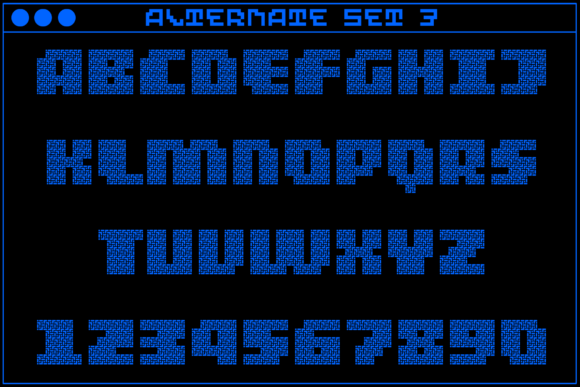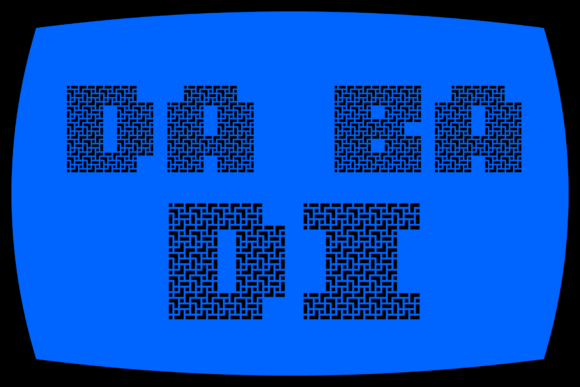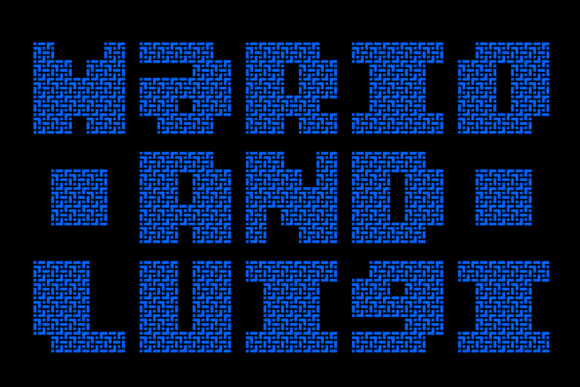
Introduction to MultiType Maze Display Font
Have you ever found yourself stuck in a creative rut, searching for that one special element to elevate your design project? It’s like the perfect chord progression in music – when it finally clicks, it can take your work to the next level. For designers, the quest for the perfect font is an ongoing one. But what if you could add a dash of uniqueness to your designs with a font that’s equal parts retro and futuristic?
Enter the MultiType Maze Display Font, a visually striking, pixelated display font that’s sure to add a distorted and trendy touch to your designs. With its PUA encoding, you can access all glyphs and swashes with ease, giving you the freedom to experiment and push the boundaries of your creative project.
Key Features of MultiType Maze Display Font
- MultiType Maze Display Font is a free design resource perfect for creative projects that require a unique and eye-catching display font.
- High-quality font with a transparent background, allowing for easy customization and integration into various design elements.
- Unique characteristics: each letter is designed to resemble a maze, adding an extra layer of visual interest to any creative project.
- Perfect for use in headings, titles, and other display text elements where a bold and playful font is required.
Honest Review: MultiType Maze Display Font
As a designer, I’m always on the lookout for high-quality design resources to elevate my creative projects. Recently, I stumbled upon the MultiType Maze Display Font, and I’m excited to share my honest review with you.
What works well: ✨ The MultiType Maze Display Font is incredibly versatile, with a range of weights and styles that make it perfect for everything from headlines to body text. The font is also highly customizable, allowing you to tweak the spacing and alignment to suit your design needs.
- ✨ High-quality design with crisp lines and clean typography
- ✨ Transparent background option for seamless integration with any design
However, I did encounter a few limitations: ⚠️ The font can be quite dense, which may make it difficult to read in smaller sizes. Additionally, the font family is quite large, which can be overwhelming if not used judiciously.
Overall, I’m impressed with the MultiType Maze Display Font. Its high quality, versatility, and customizability make it an excellent addition to any designer’s toolkit. While it may have some limitations, the benefits far outweigh the drawbacks.
How to Use MultiType Maze Display Font
The MultiType Maze Display Font is a versatile design resource ideal for creative projects that require a unique, eye-catching font. This high-quality font features a transparent background, making it easy to customize and integrate into various design elements.
Use the MultiType Maze Display Font in conjunction with other design elements, such as bold lines and bright colors, to create a striking visual effect.
Experiment with different font sizes and styles to add depth and interest to your design.
The MultiType Maze Display Font is ideal for:
Graphic design projects, such as posters, flyers, and brochures.
Web design projects, such as website headers and footers.
Print design projects, such as business cards and letterheads.
Alternatives to MultiType Maze Display Font
1. Bebas Neue
Bebas Neue is a high-quality, sans-serif font ideal for creative projects that require a modern, clean design. It’s perfect for use in logos, headings, and titles. This font is great for designers who need a versatile, all-purpose font that can be used across various design resources.
Compared to MultiType Maze Display Font, Bebas Neue has a more straightforward and minimalistic design, making it easier to read and use in a variety of creative projects. It’s also available for free download and can be easily customized to suit your design needs.
What is the recommended resolution for using the MultiType Maze Display Font in a design project?
The MultiType Maze Display Font is designed to be highly legible at a range of resolutions. However, for optimal results, we recommend using the font at a minimum resolution of 72 dpi (dots per inch) for digital projects and 300 dpi for print projects. This will ensure that the font displays clearly and crisply in your design.